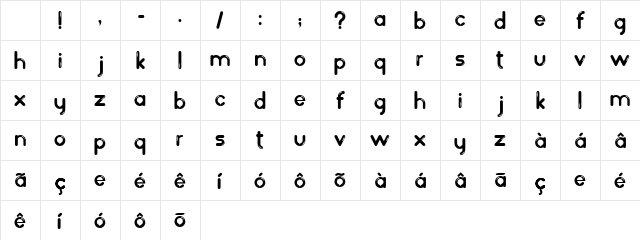
Complete balonez fantasia br Regular glyph index. Displaying only characters natively supported by balonez fantasia br Regular font.
balonez fantasia br is a composed and adaptable typeface that performs quietly and consistently across a wide range of design contexts.